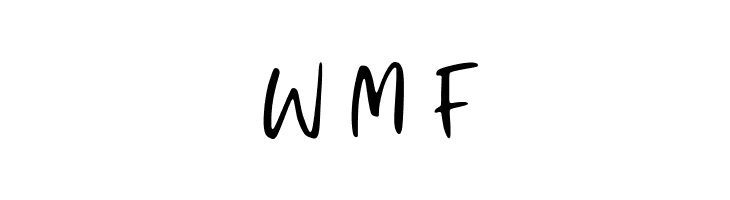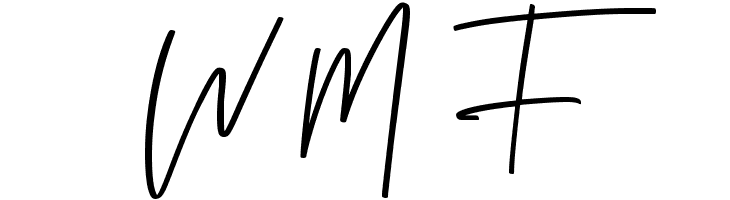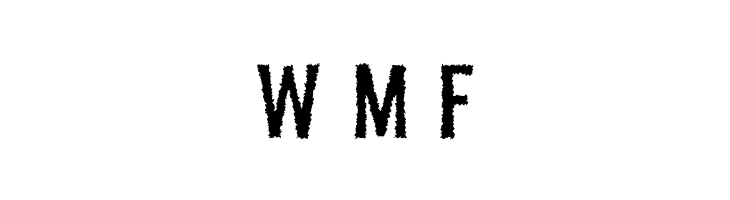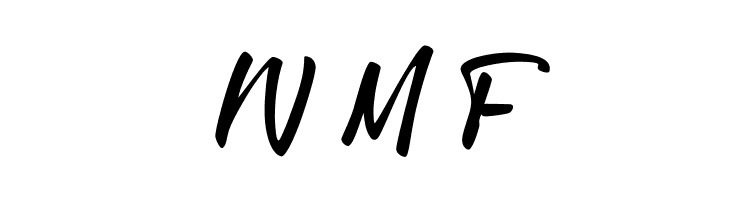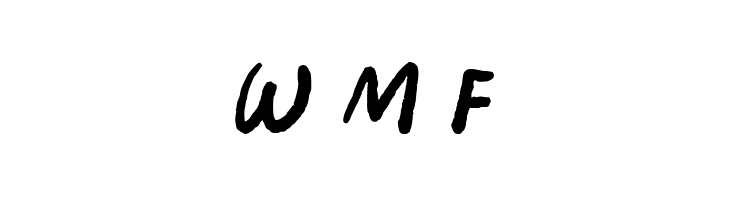
A bold, decorative font with intricate, textured patterns.
A playful, handwritten font with bold, rounded characters and a casual vibe.
A modern, geometric sans-serif font with a sleek and uniform appearance.
A modern, handwritten font with fluid, dynamic strokes.
An intricate and decorative monogram font with ornate flourishes.
A modern, geometric font with clean lines and a bold presence.
A playful, handwritten font with bold, irregular strokes and a whimsical charm.
A dynamic, expressive handwritten font with fluid, cursive strokes.
A bold, textured font with a vintage, hand-crafted appearance.
A rough, textured font with a vintage, hand-crafted appearance.
A rugged, textured font with a handcrafted, vintage appeal.
An ornate and intricate font with elaborate, swirling patterns.
A bold, ornate Blackletter font with sharp serifs and high contrast, ideal for historical or decorative projects.
A gothic Blackletter font with sharp, angular lines and decorative serifs.
A casual, handwritten font with a personal and informal style.
A casual, handwritten font with a playful and friendly style.
A vintage collection of rustic, handcrafted icons and symbols.
A cursive, handwritten font with smooth, connected strokes and a personal touch.
A spooky, decorative font with scratchy, uneven strokes.
A casual handwritten font with a friendly and playful style.
Line art icon set with religious and community motifs.
Monoline religious and community icon set with a minimal, decorative style.
Line-art icon font with religious and spiritual motifs.
Minimalist, thin-line religious icon set with a modern feel.
A casual, handwritten font with smooth, fluid strokes.
A casual, handwritten font with fluid, connected strokes and dynamic thickness.
A flowing, cursive script font with elegant, interconnected letters.
A playful, handwritten-style font with a friendly and informal appearance.
A casual, handwritten font with a natural and personal touch.
A playful, handwritten font with a casual and authentic feel.
An elegant, flowing script font with a cursive, handwritten style.
A bold, ornate blackletter font with a medieval, gothic style.
A casual, playful handwritten font with fluid, slightly irregular strokes.